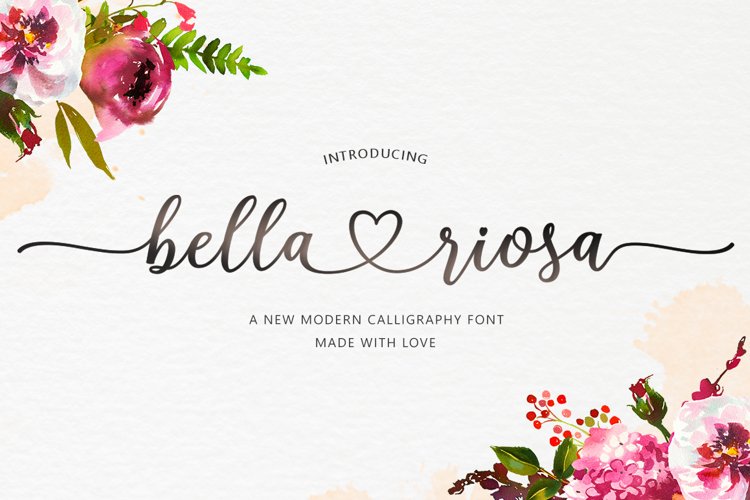
Bella Riosa modern script typeface. Contains a complete set of lowercase, uppercase, alternative, ligature, punctuation, numbers, and multilingual support. Works in harmony with Bella Riosa to create awesome calligraphy creations. You are welcome to use it for various purposes: logos, wedding invitations, titles, signatures, t-shirts, letterheads, signboards, labels, posters etc.